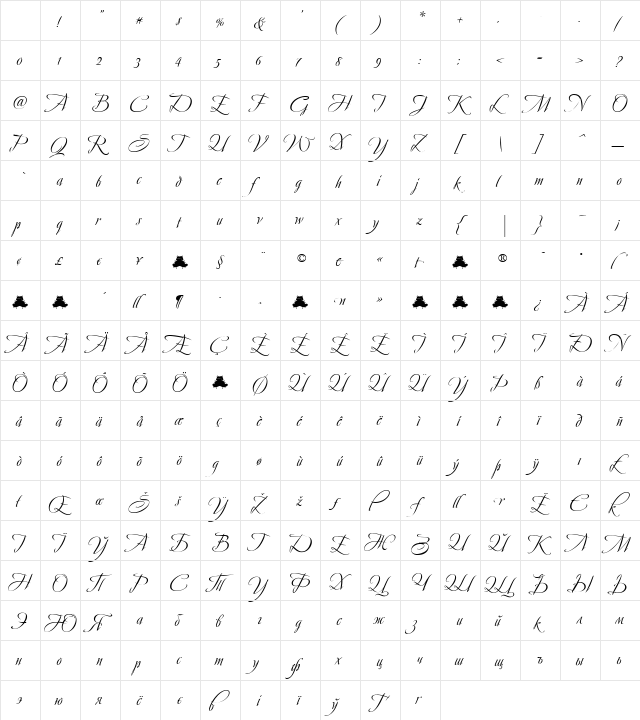
Complete Avalon Medium Regular glyph index. Displaying only characters natively supported by Avalon Medium Regular font.
Avalon Medium is a composed and adaptable typeface that performs quietly and consistently across a wide range of design contexts.
Pro Tip: Use Avalon Medium in both headline and body roles to test its range before committing to a single application.